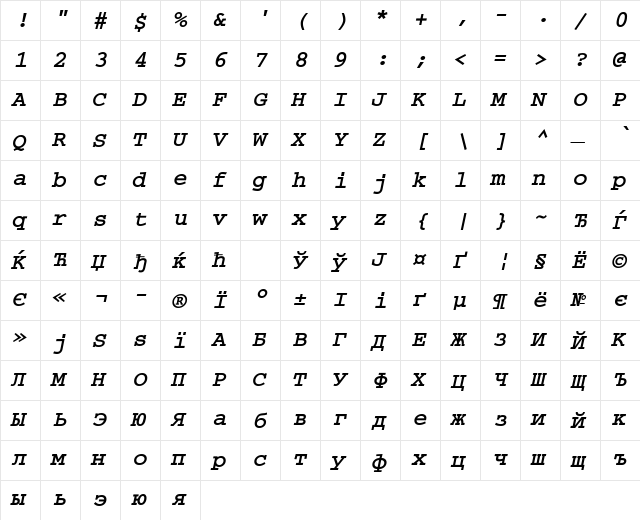
CourierCTT BoldItalic Font Preview
Design Context for CourierCTT Typeface
CourierCTT brings the precise, column-aligned rhythm of monospaced typography to designs that value technical clarity and systematic order. The slanted form adds forward momentum and visual energy. The heavy weight commands attention and anchors typographic hierarchies.